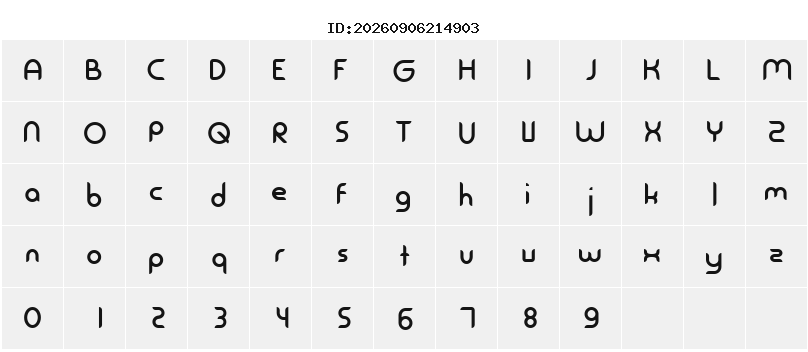
Urba Preview
• Font Name: Urba
• Full Font Name: Urba Regular
• PostScript Name: Urba-Regular
• Designer: Preston Racette
About Urba.ttf
Urba.ttf is a modern, elegant sans-serif font designed for ultimate readability and visual harmony. Perfect for branding, headlines, web design, and print materials.